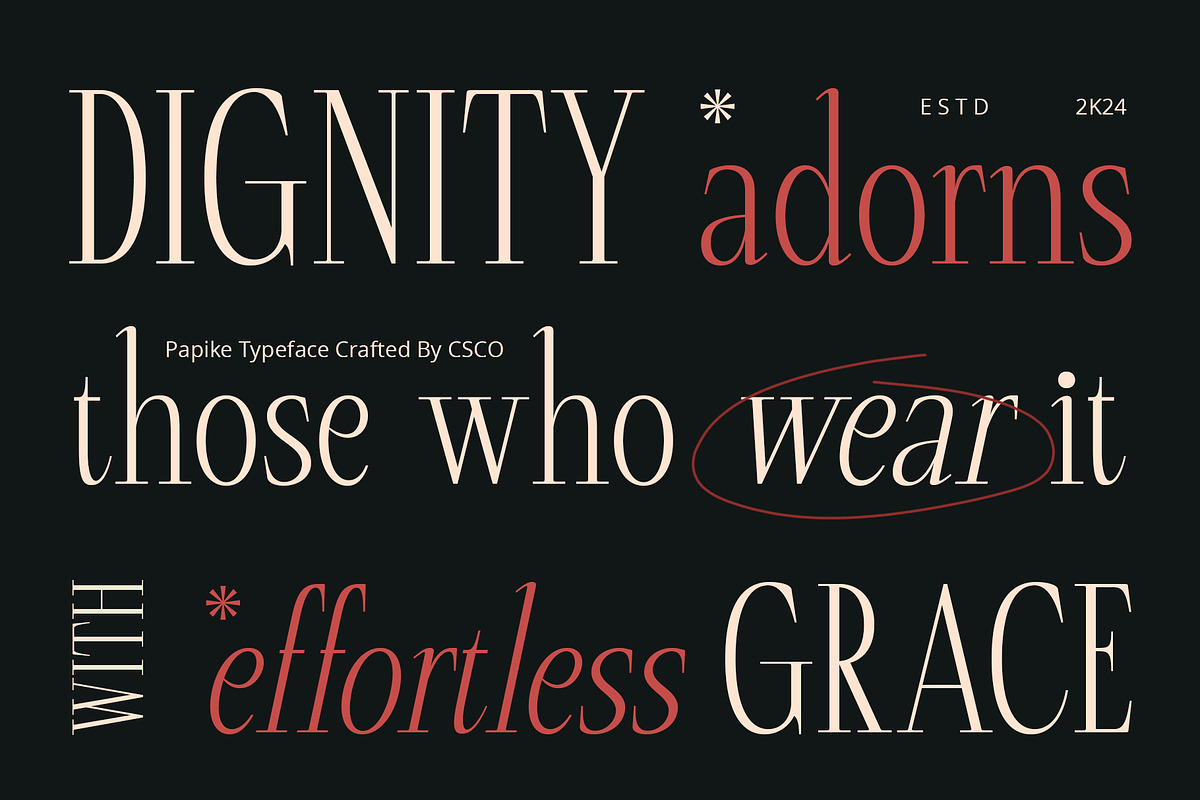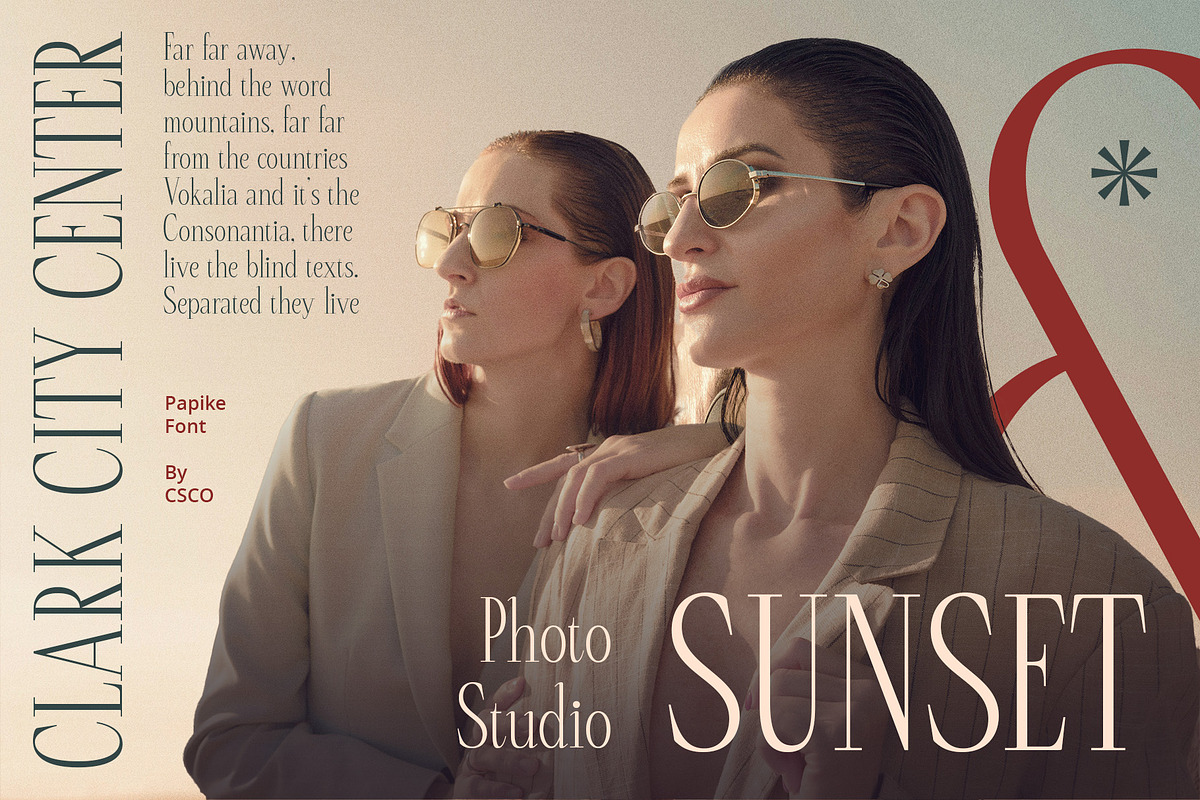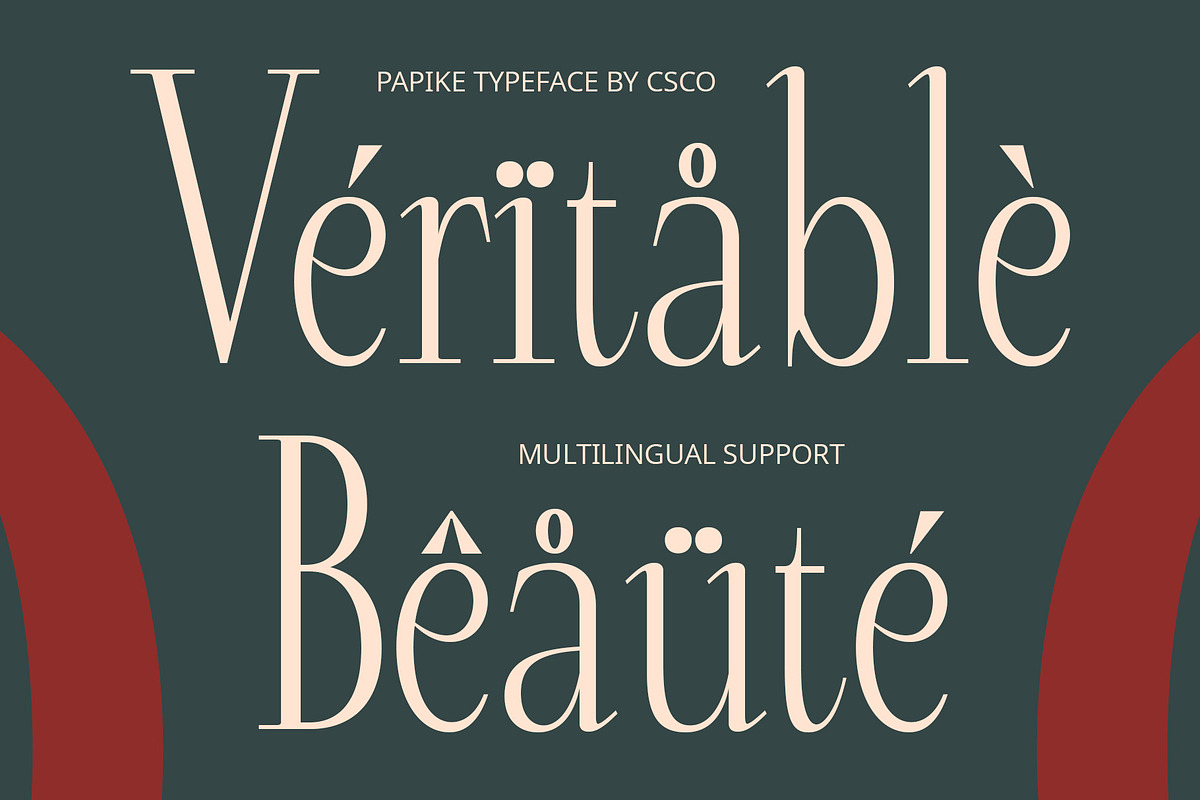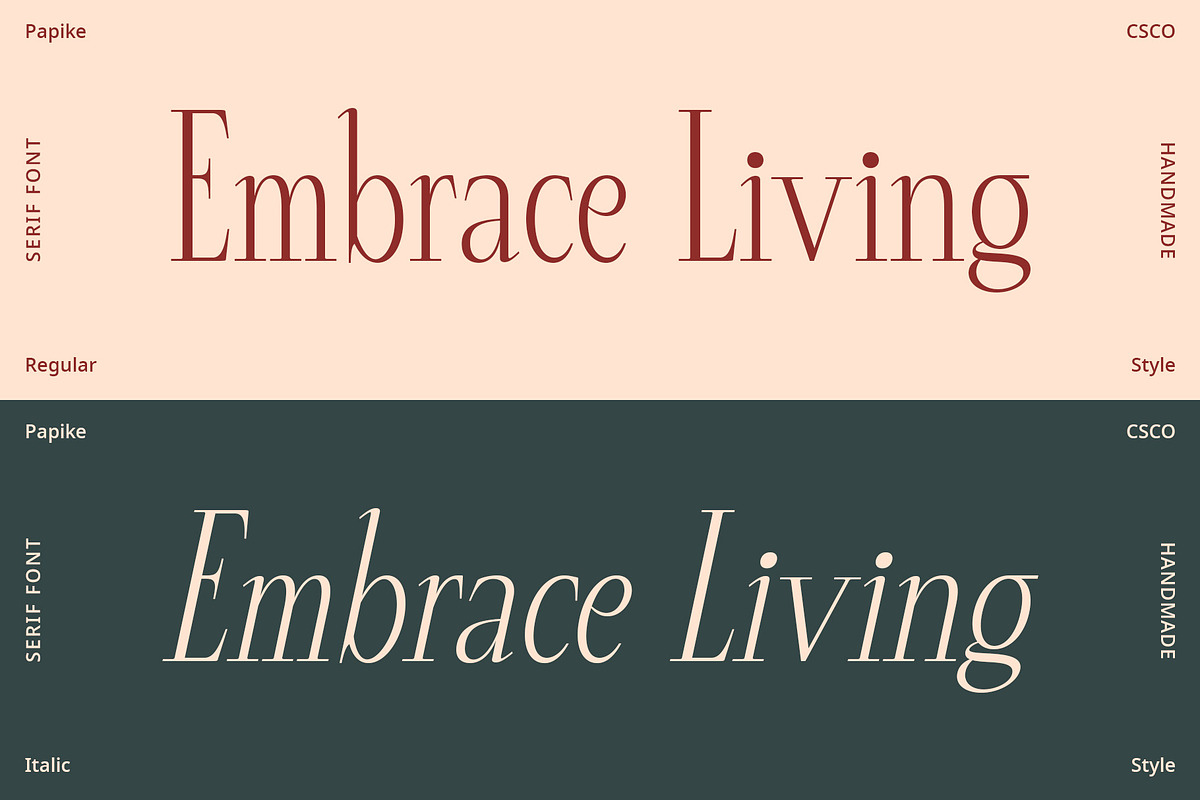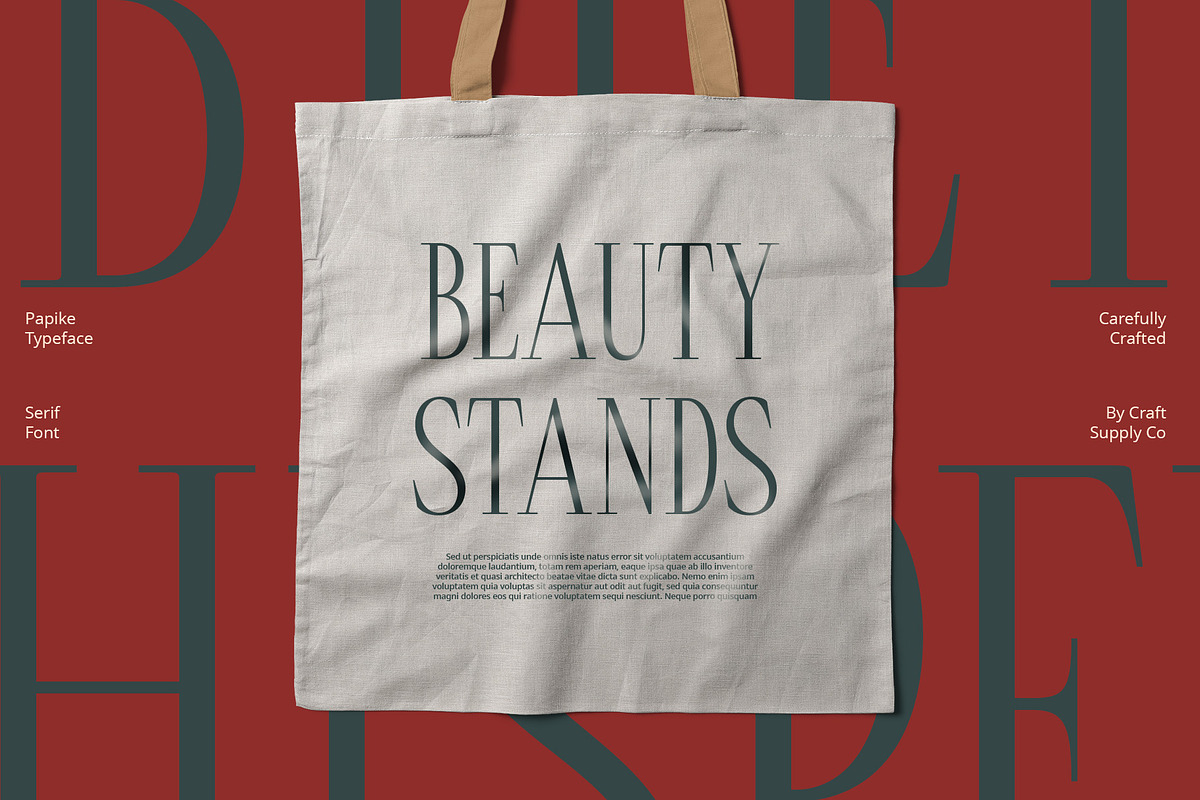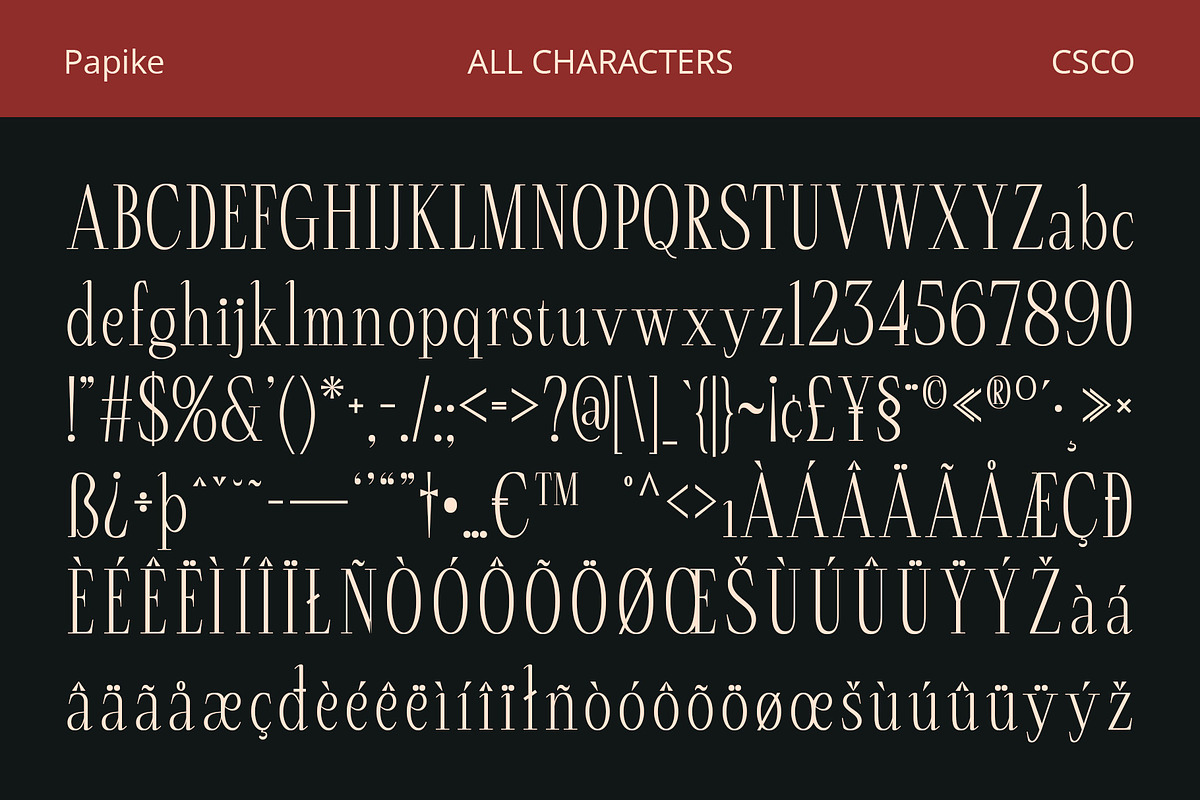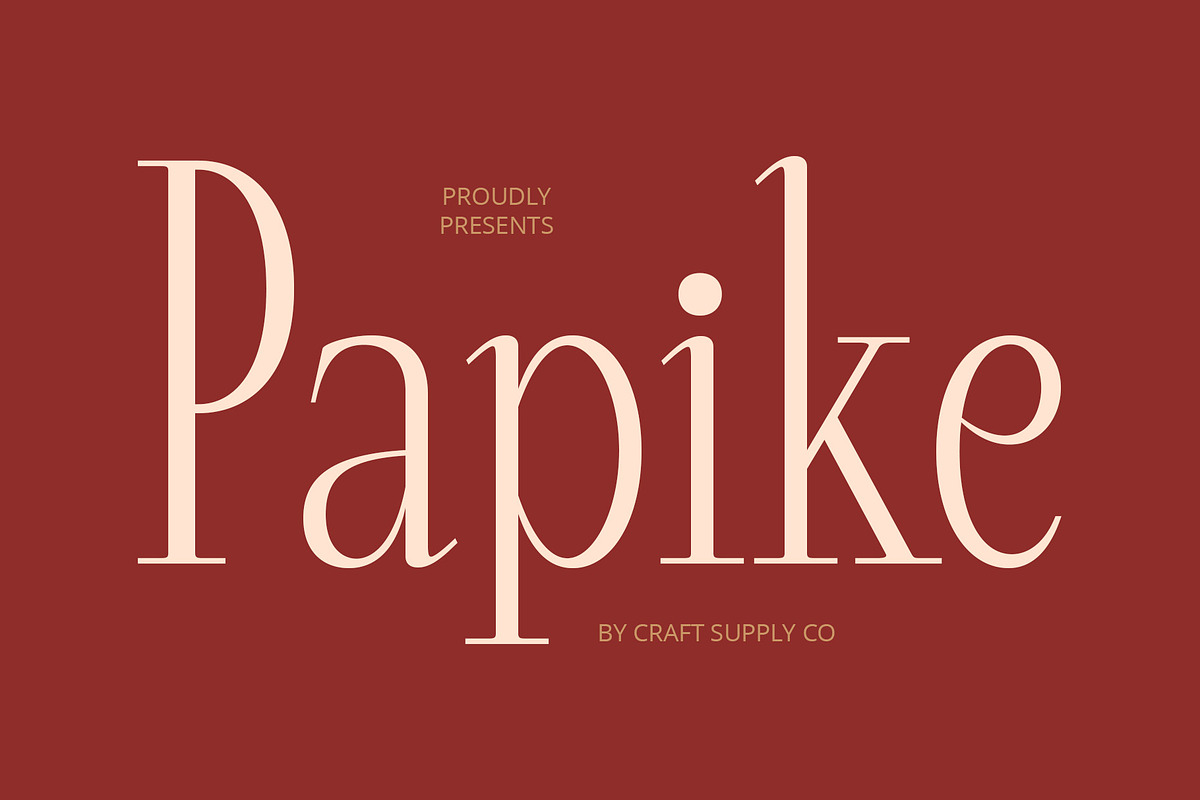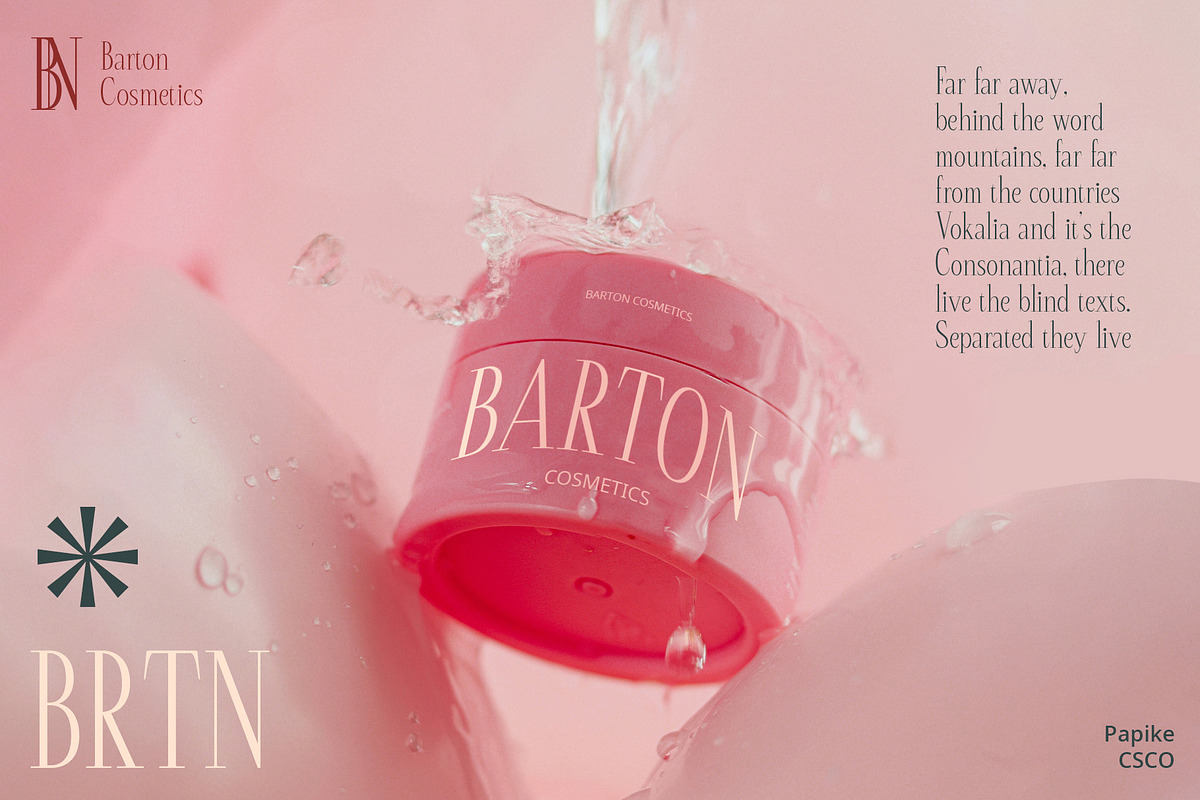
Papike – Modern Serif
Papike – Modern Serif: Elegance Meets Professionalism
Modern Serif with an Elegant Impression
Papike Font is a modern serif typeface that exudes elegance and sophistication, making it ideal for professional use. Its clean lines and refined details create a polished look perfect for corporate and organizational projects.
Timeless Elegance
With its modern serif design, Papike Font combines classic serif elements with contemporary styling. The result is a timeless elegance that enhances readability and adds a touch of class to any design.
Perfect for Professional Use
Whether you’re designing corporate reports, business cards, or a sleek company logo, Papike Font is the perfect choice. Its elegant impression and professional appeal ensure your designs convey a sense of sophistication and credibility.
Versatile and Refined
From editorial layouts to high-end branding, Papike Font offers versatility with a refined touch. Its elegant design makes it suitable for a variety of applications, including presentations, marketing materials, and more.
Enhance Your Designs
Elevate your projects with Papike Font, where modern serif styling meets professional elegance. Its sophisticated appearance and versatile nature make it a valuable addition to any designer’s toolkit, ensuring your work stands out with class and distinction.
- Papike Regular
- Papike Italic